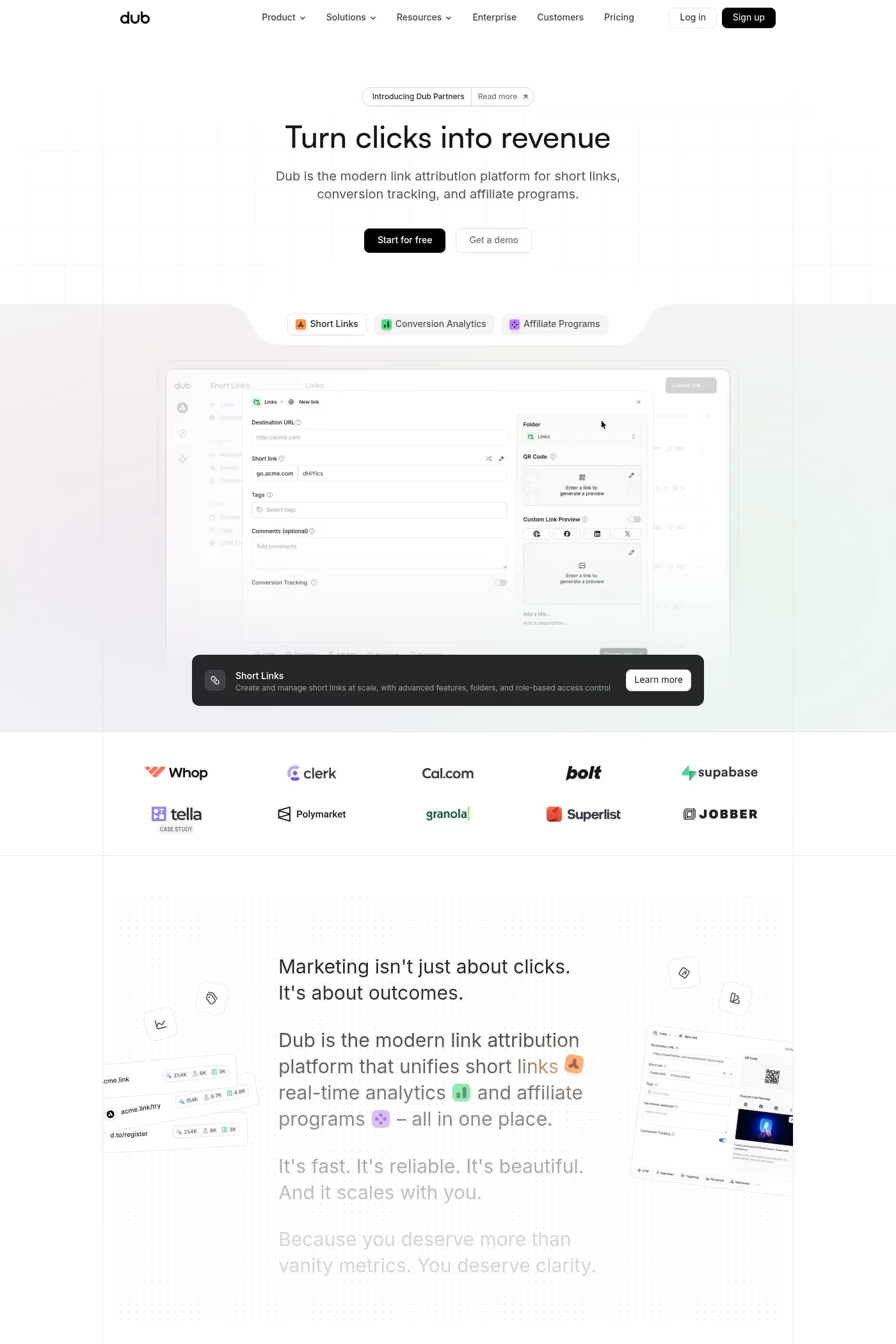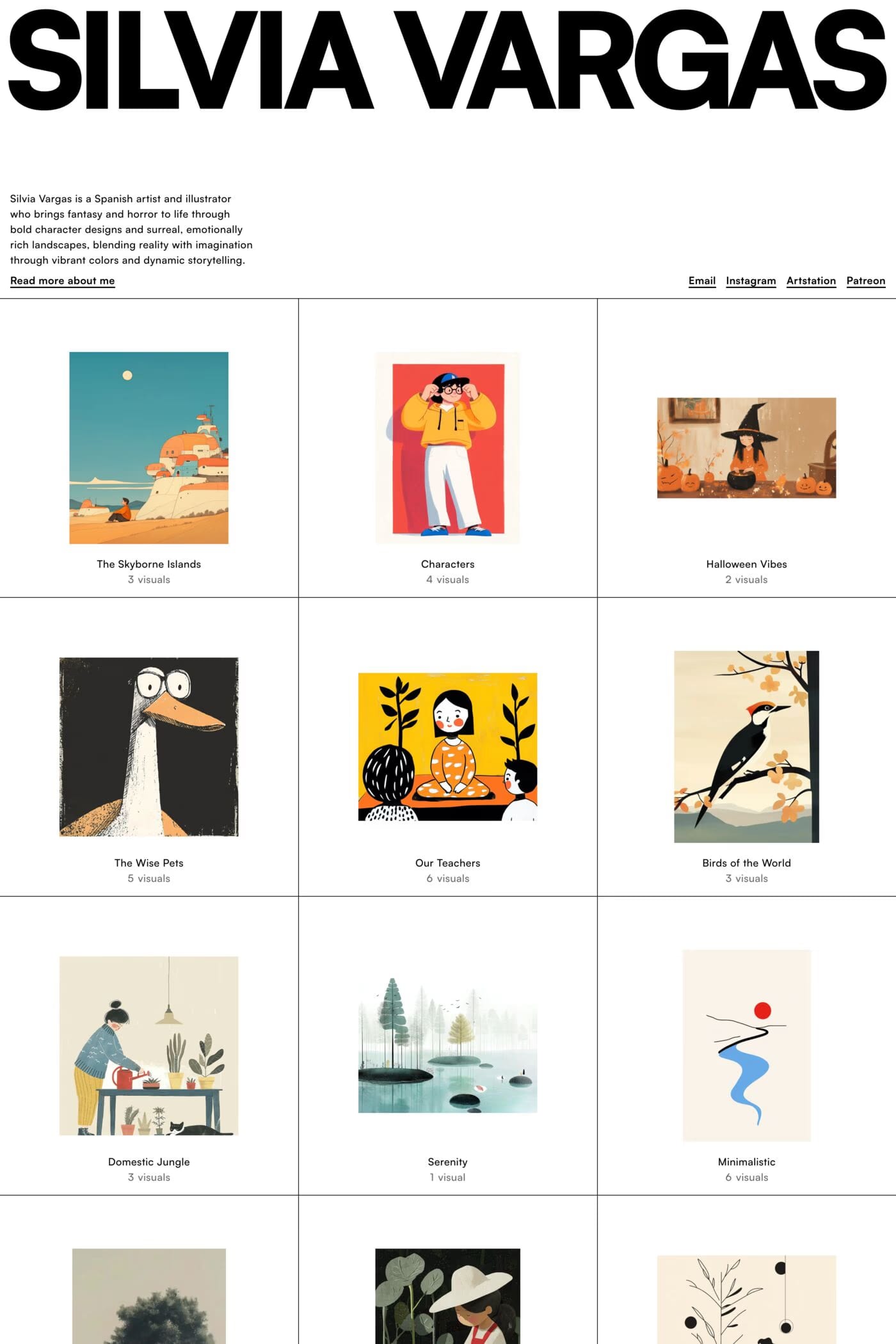
Satoshi is a sans-serif typeface from Indian Type Foundry.
Satoshi is a modernist sans serif typeface. Its design combines typically grotesk-style letterforms, with some characters that are quite geometrically-designed. In terms of its appearance, Satoshi was inspired by Modernism and Industrial-Era graphic and typographic design. The family has ten weights on offer, ranging from Light to Black with complementary italics. It is an excellent choice for use in branding, editorial, and poster design.